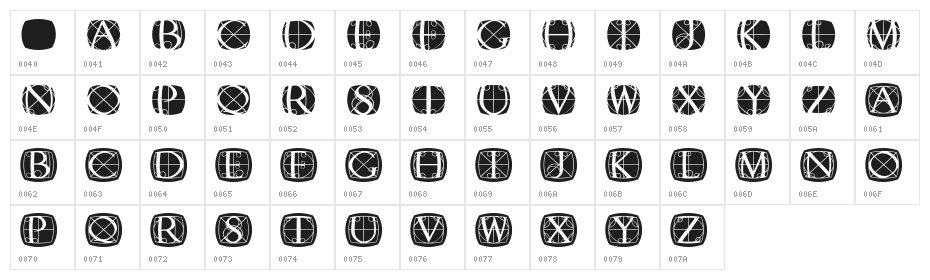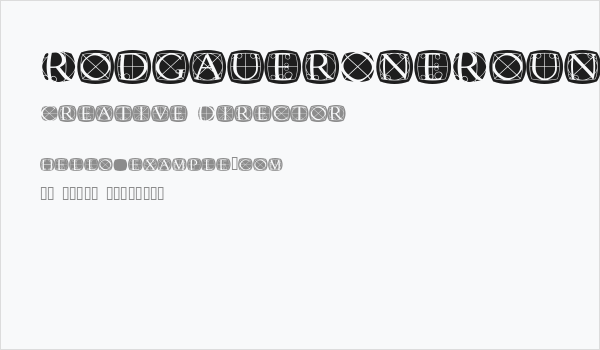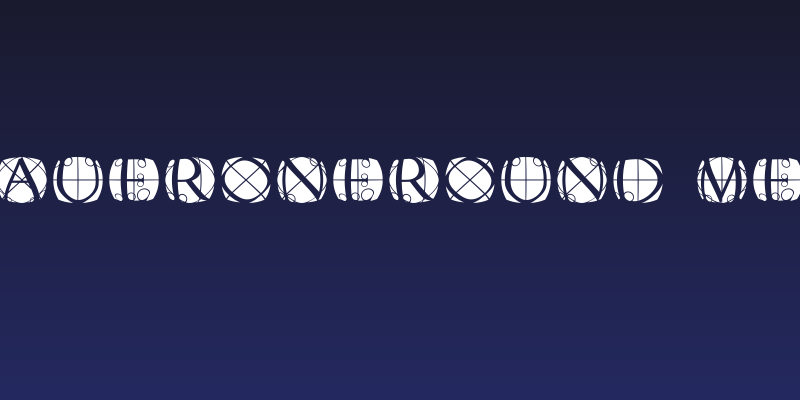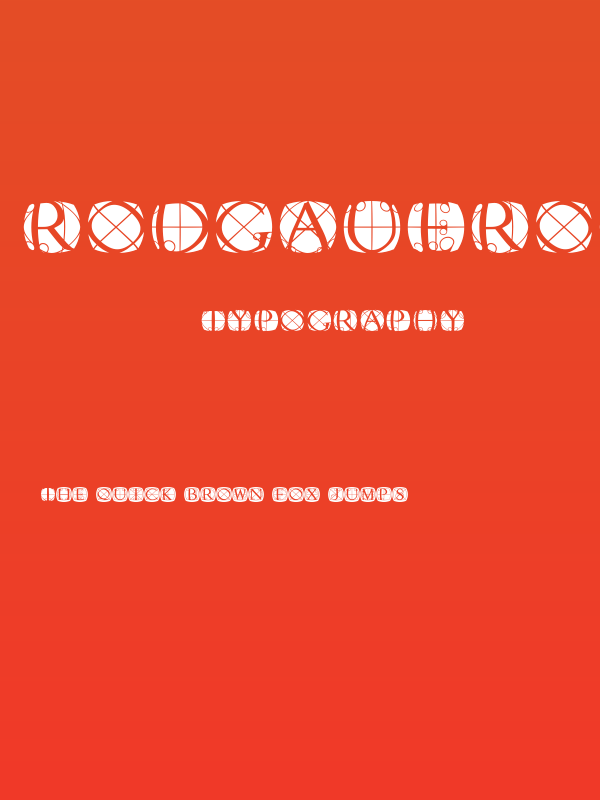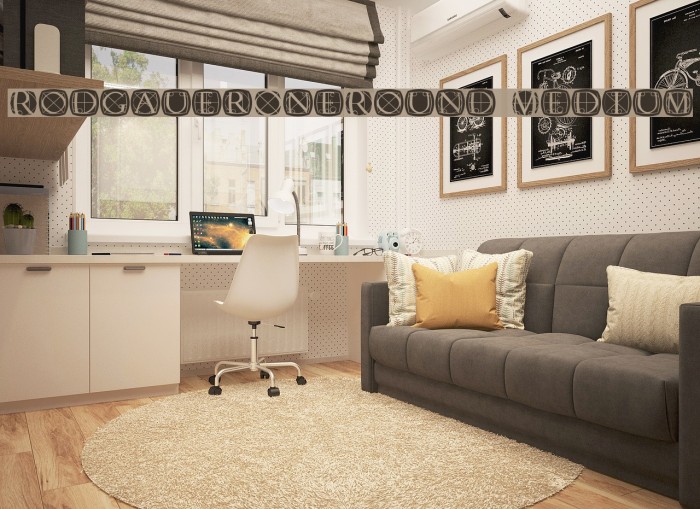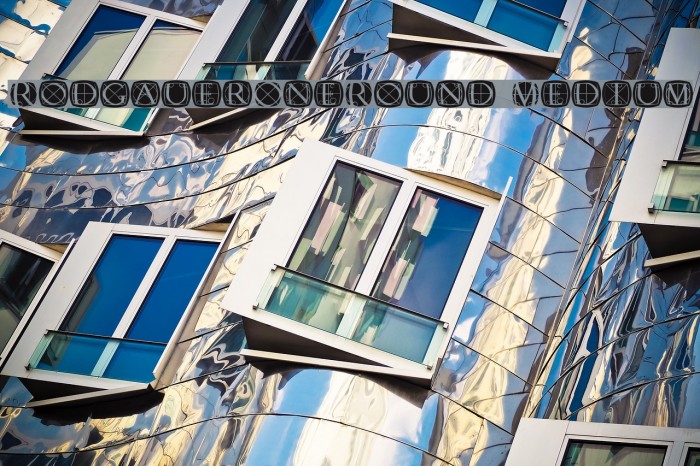
RodgauerOneRound Medium Font
RodgauerOneRound Medium Description
This font features a unique and artistic design, characterized by its circular and geometric patterns within each letter. The letters are enclosed in rounded shapes, giving them a distinct and decorative appearance. The intricate line work within each character adds a layer of complexity and elegance, making it stand out as a display font. The overall aesthetic is modern and artistic, suitable for creative and bold design projects. The font's style is consistent across uppercase letters, providing a cohesive look.
| Overall Style | Modern, Artistic |
| Proposed Projects | Ideal for artistic posters, album covers, branding for creative industries, and unique logo designs. |